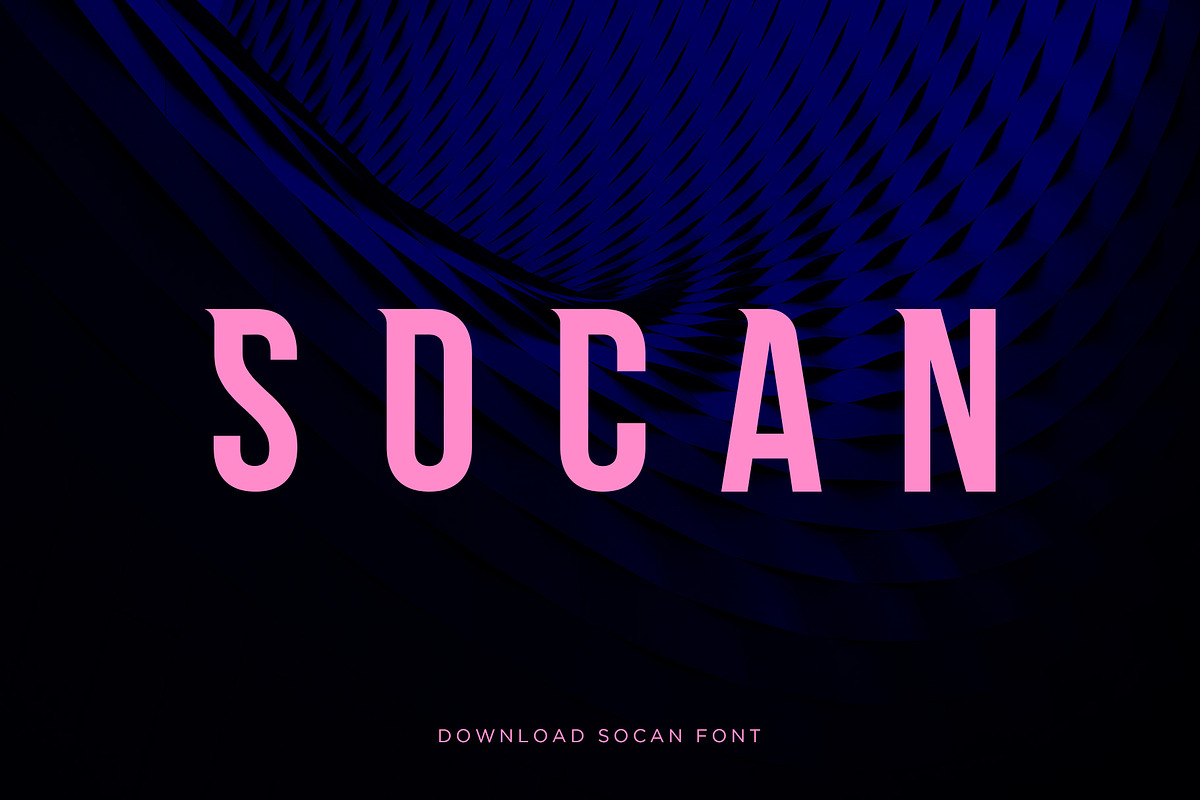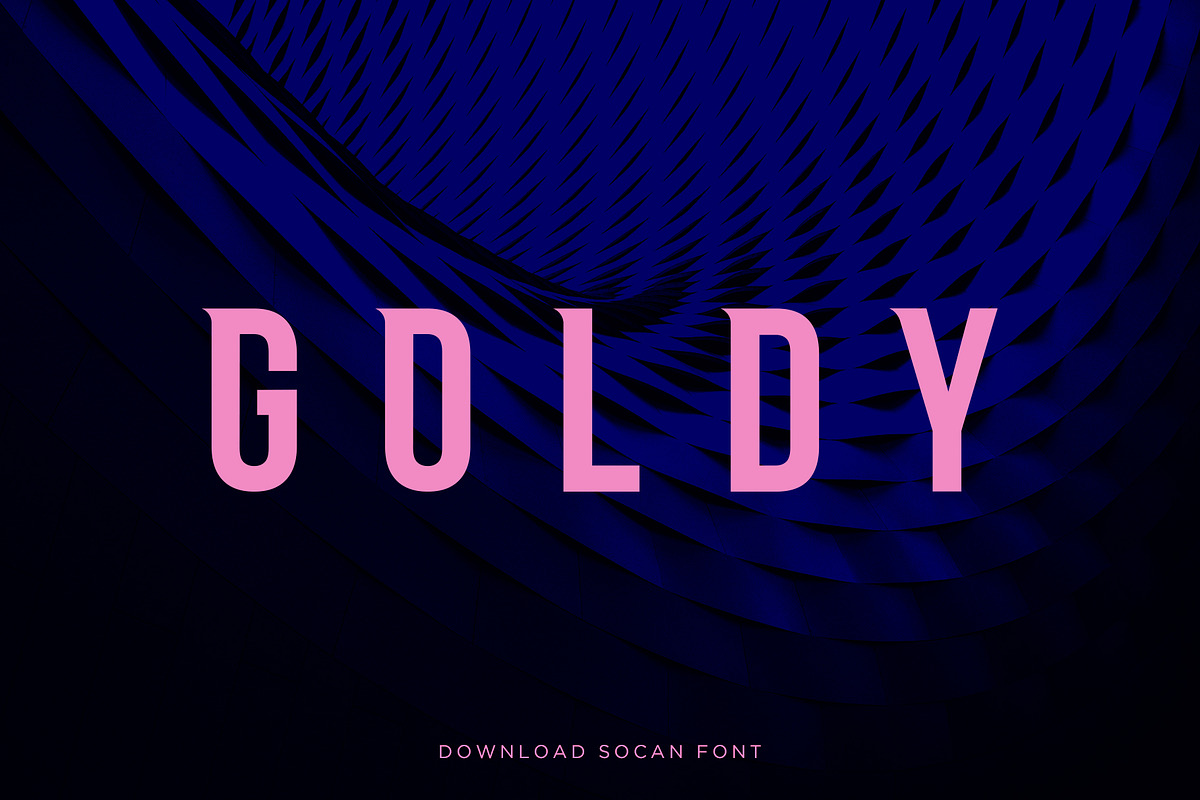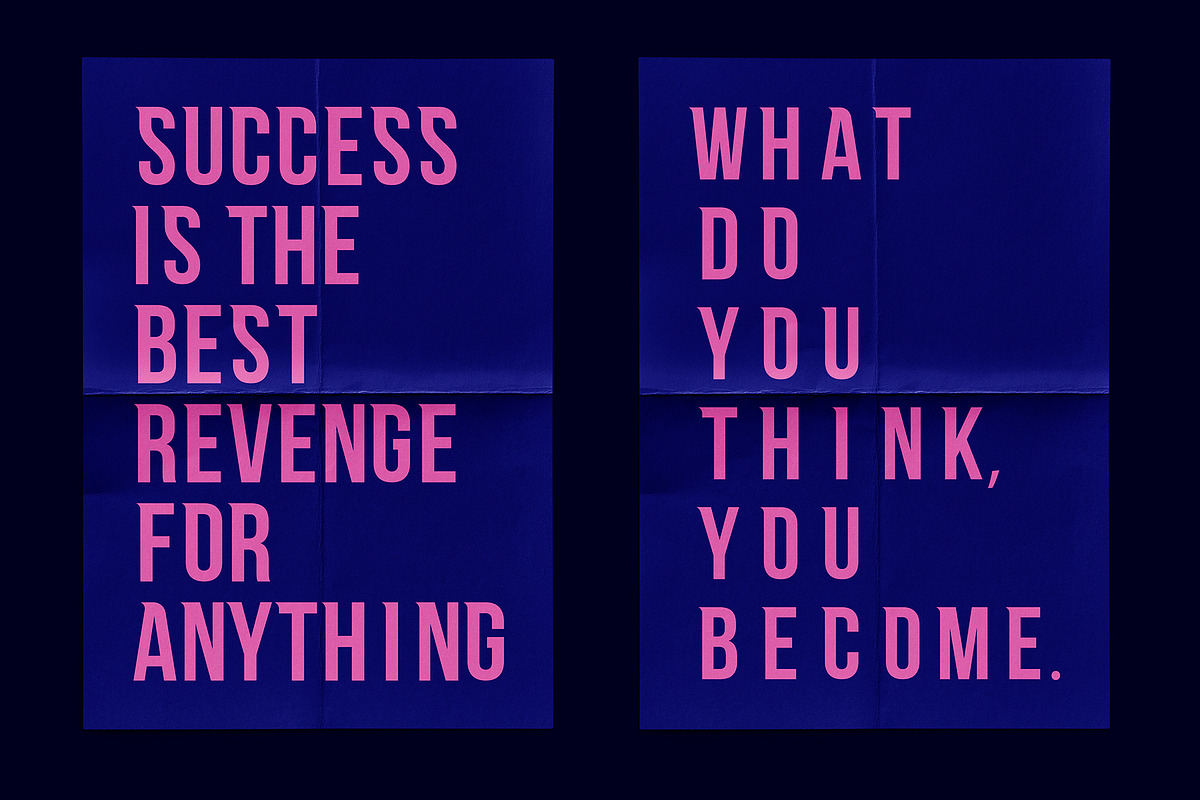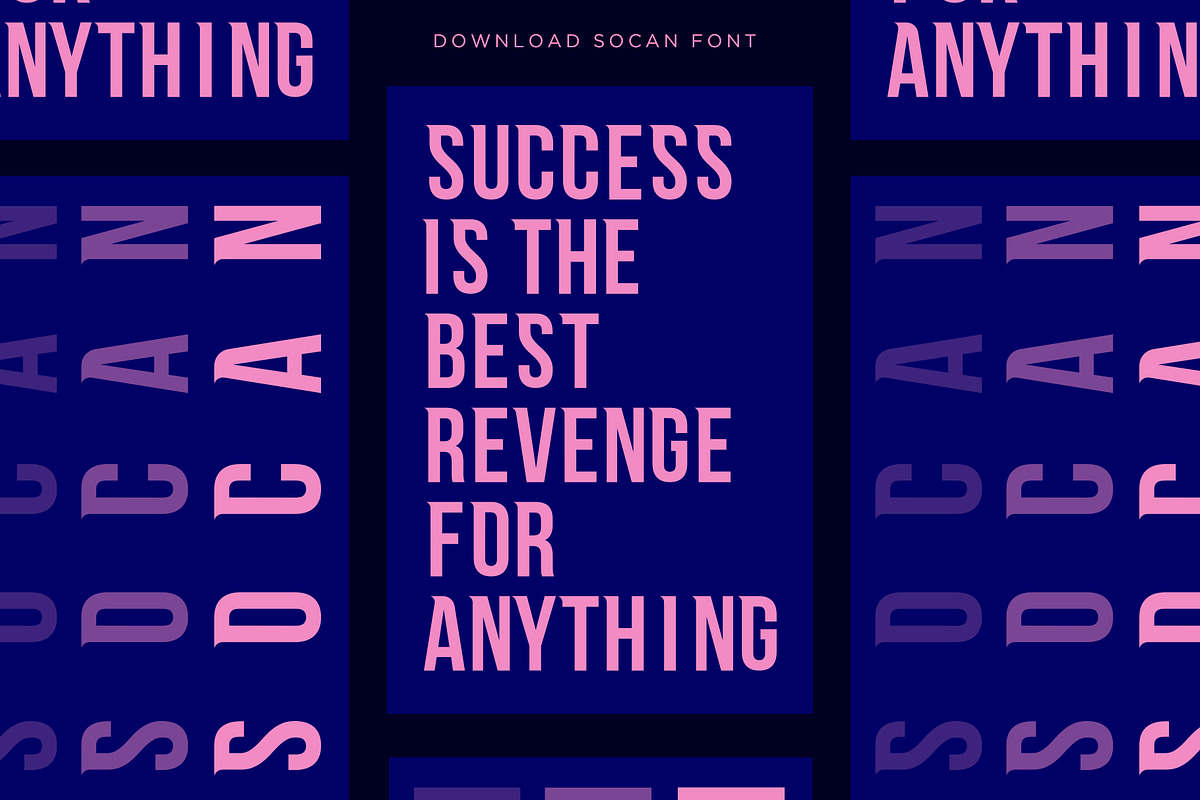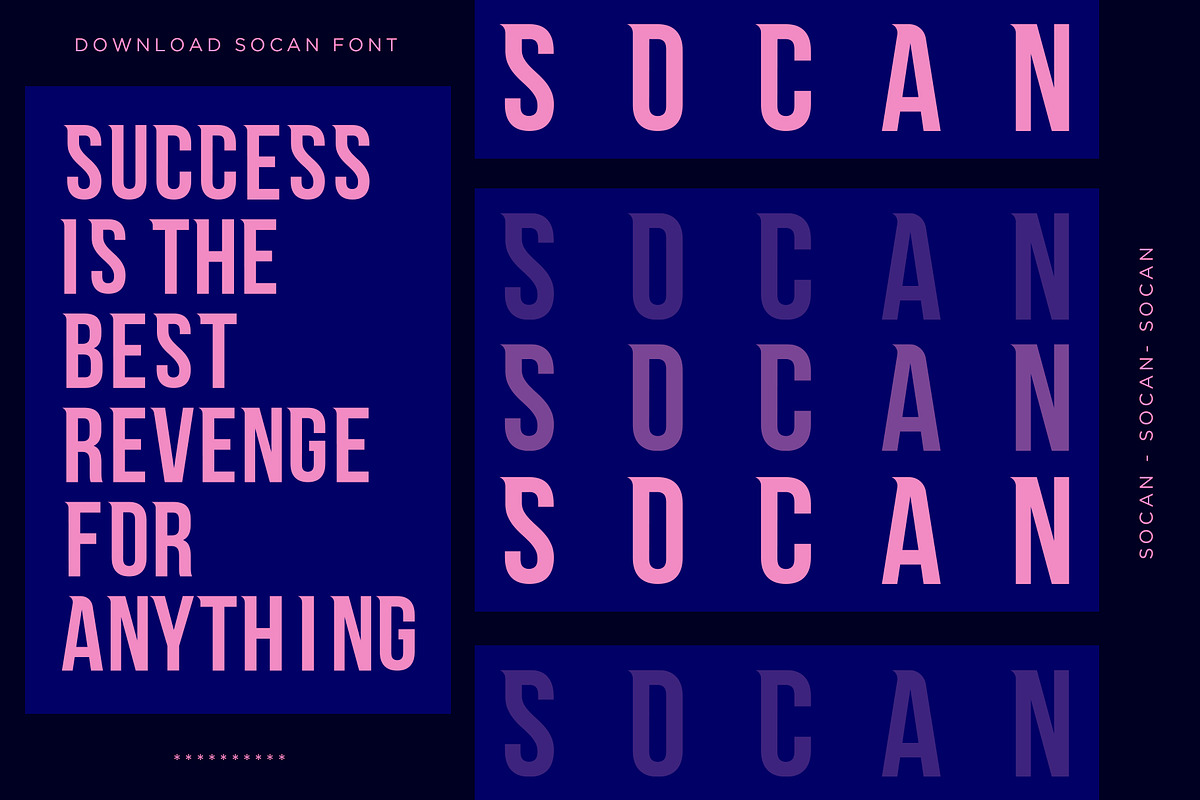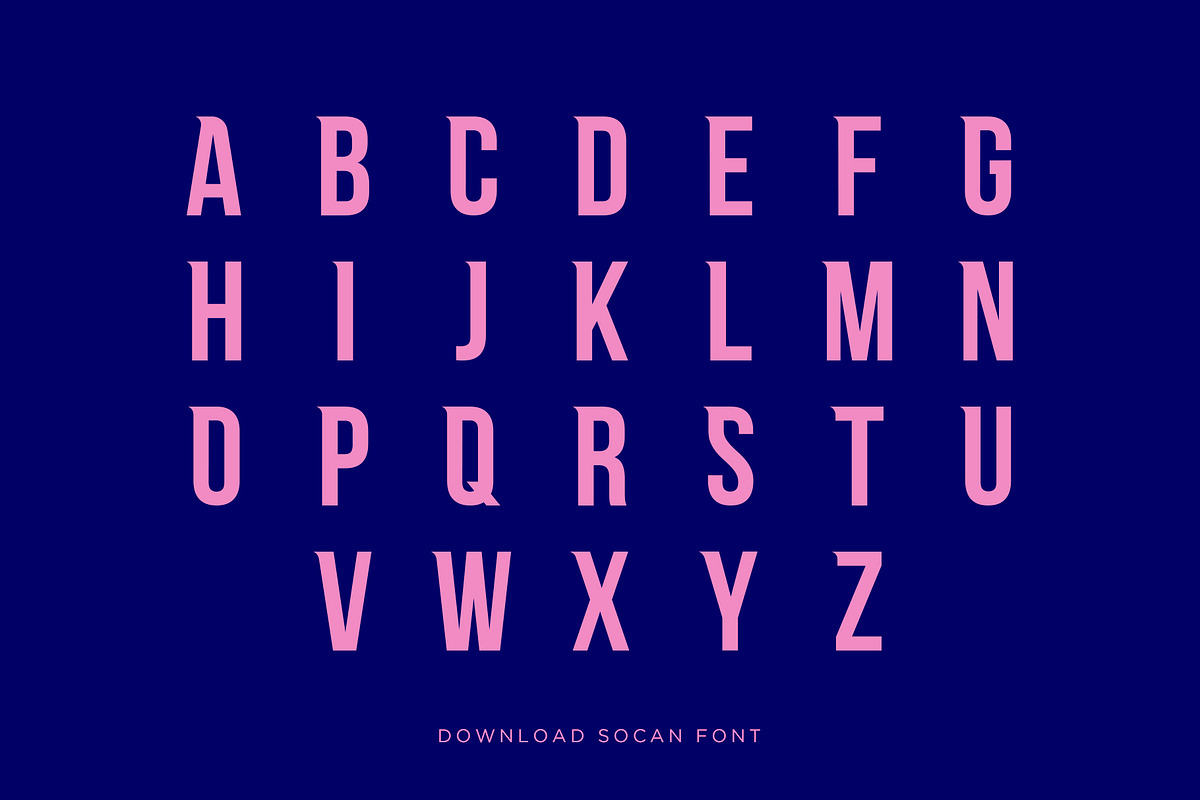
Socan Font
• Unique modern typeface.
Why Socan Font is worth a look
Socan Font by Creativeadi fits naturally into Branding, posters, packaging, typography.